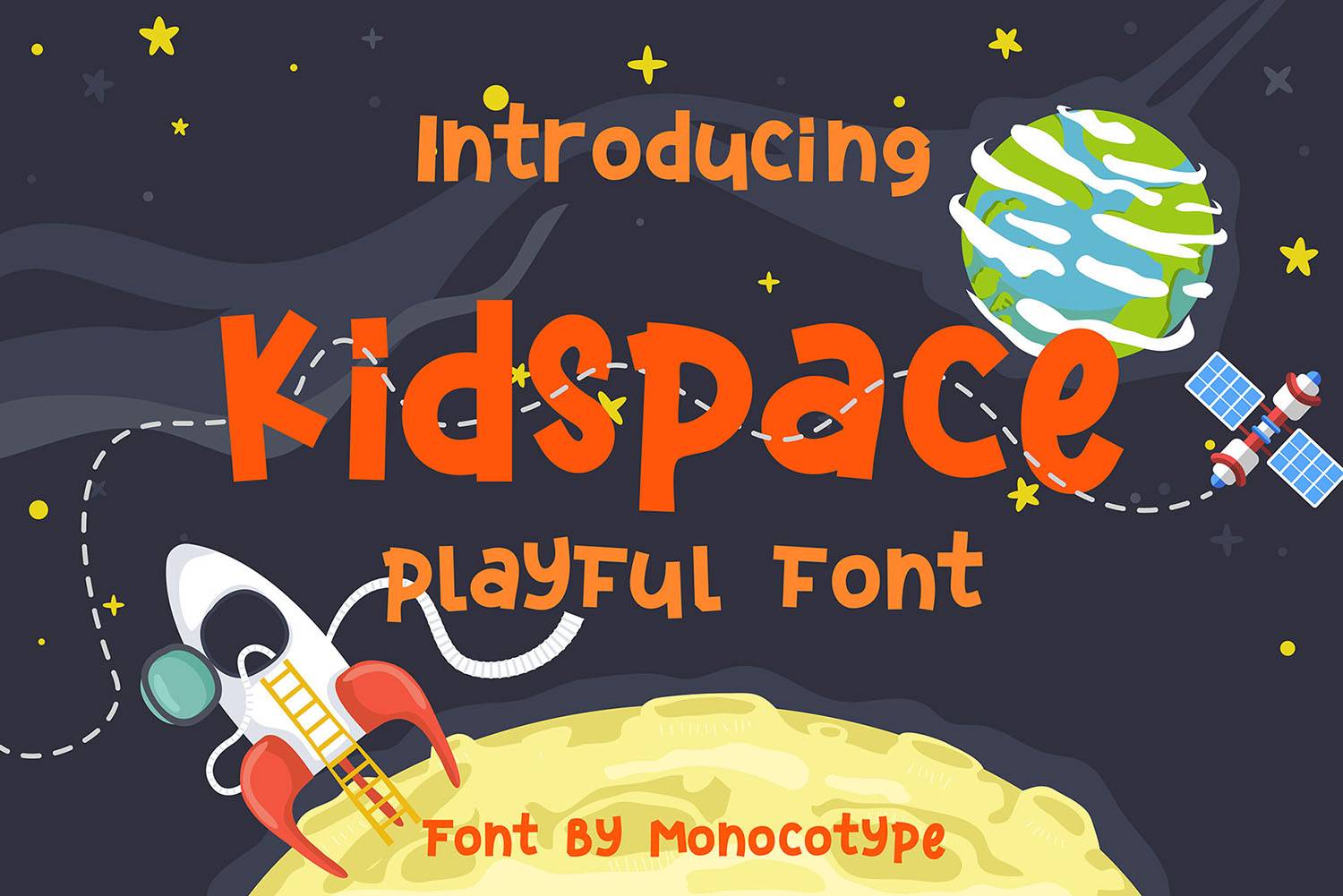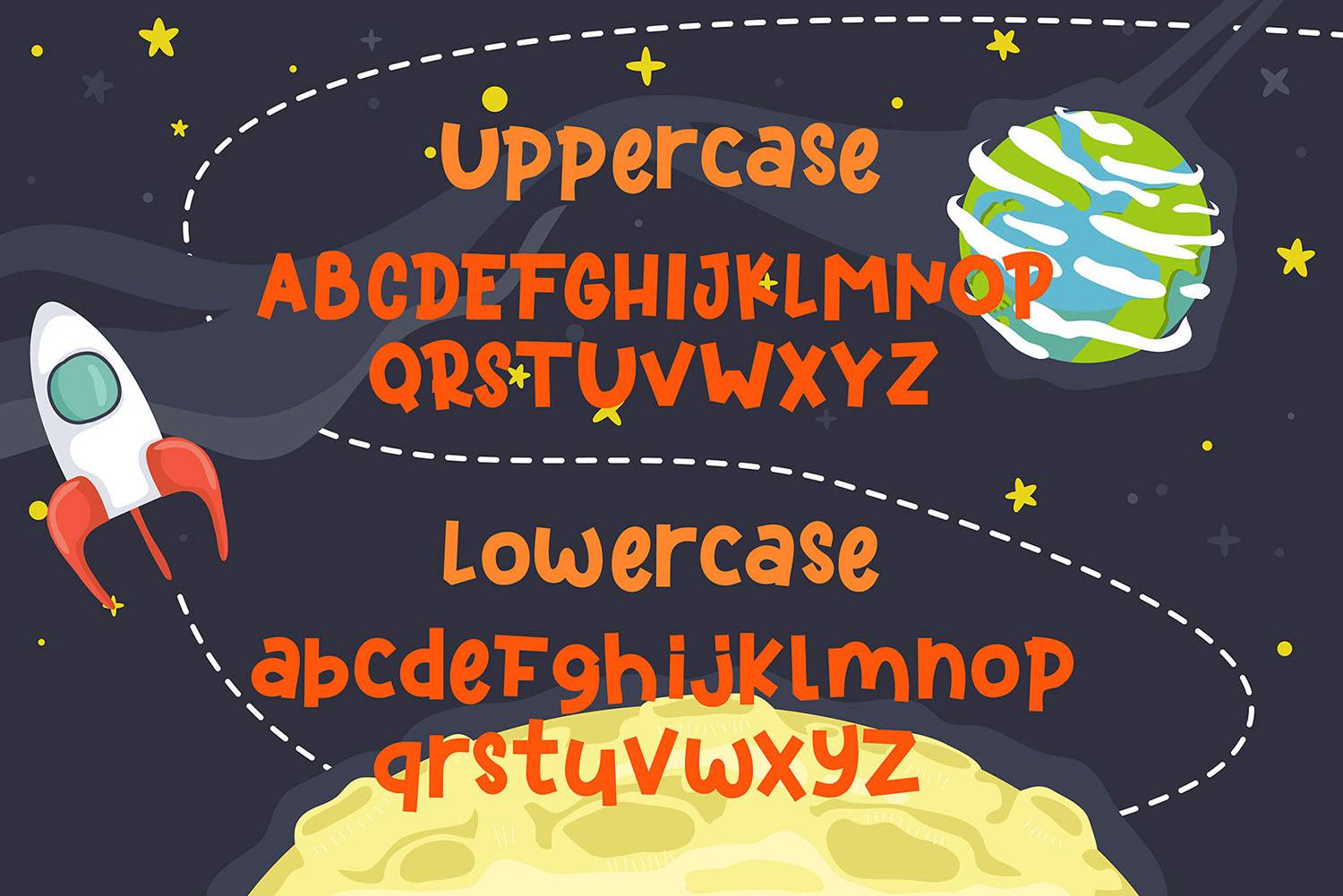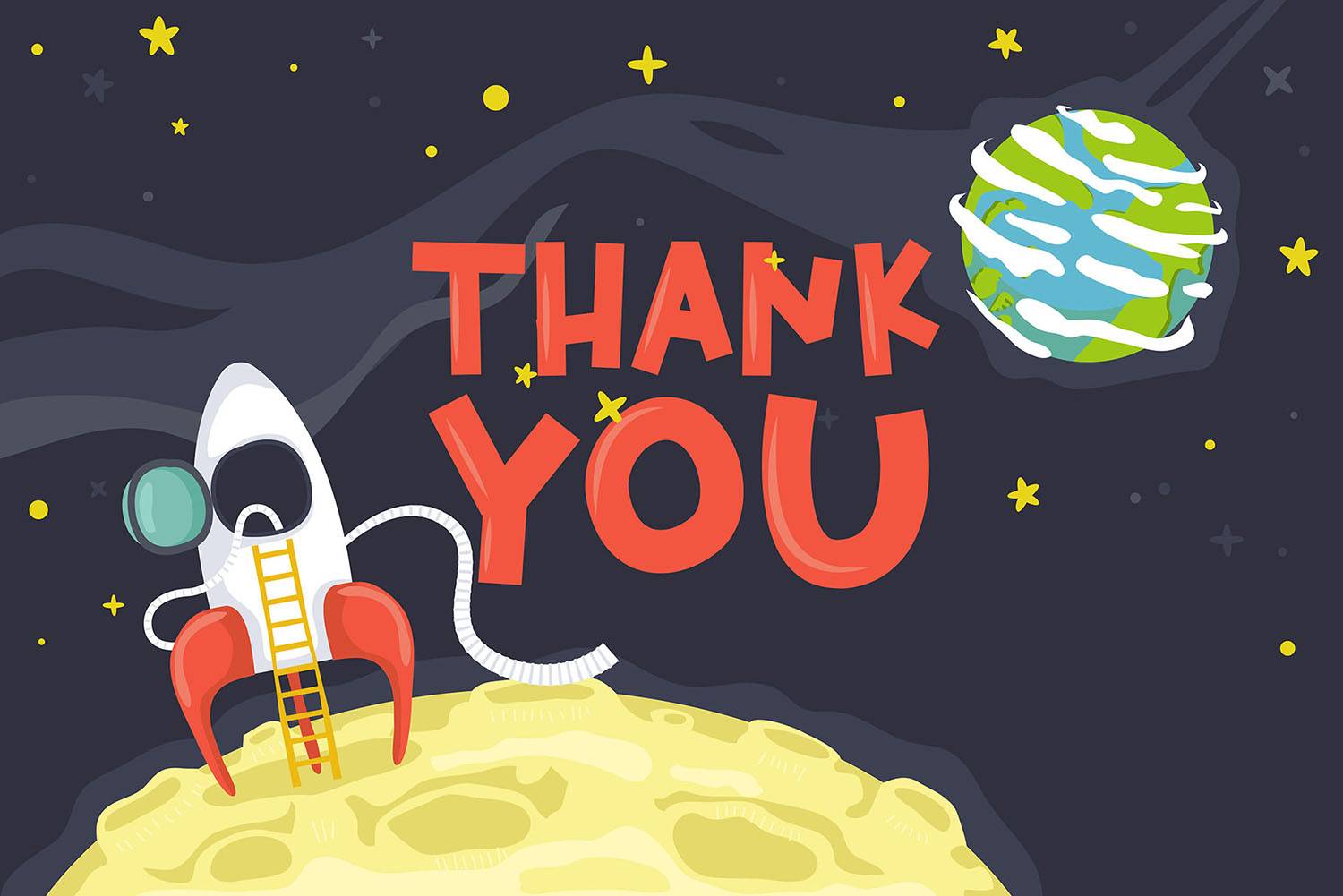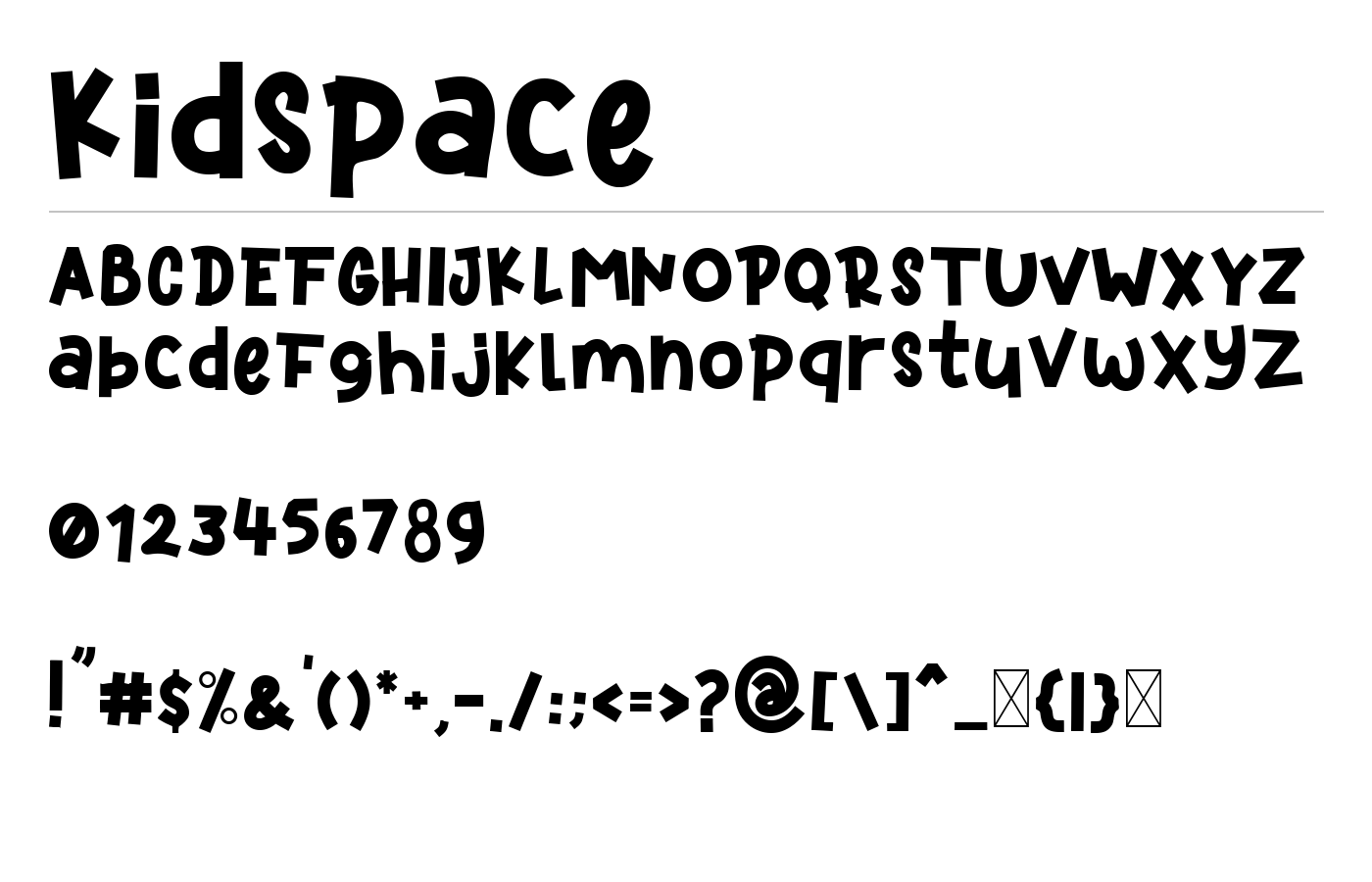
Kidspace is a playful sans serif font with a chunky, irregular design that gives it a fun and youthful personality. Its bold weight, varied letter shapes, and slightly quirky curves make it ideal for children’s projects, casual branding, and lively headlines. This font works well in contexts where a friendly, approachable, and energetic tone is desired.
Kidspace Font
About Kidspace Font
| Font family | Kidspace Font |
| Designer | Rangga Ilyasa |